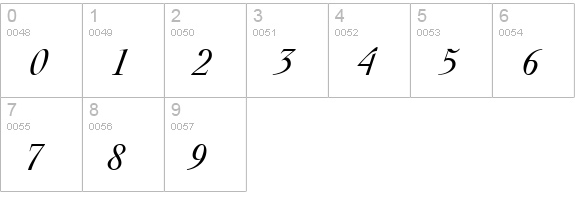
Thesis SSi Italic Font Details
Thesis SSi Italic is a distinctive, italic variant in the Thesis typeface family \xE2\x80\x94 well suited to design and typography projects.
Thesis SSi Italic font is an exquisite typeface that combines elegance, versatility, and sophistication. Designed with meticulous attention to detail, this font is perfect for adding a touch of class to any project or design. The italicized style of Thesis SSi enhances the overall aesthetic appeal, offering a sense of fluidity and grace. Its unique letterforms are crafted with precision, ensuring legibility while maintaining a distinct artistic flair. Whether used for headlines, body text, or creative displays, this font effortlessly commands attention. One of the standout features of Thesis SSi Italic font is that it is freely available to download at FontsMarket.com. This means that you can access this exceptional typeface without any cost, making it an ideal choice for budget-conscious designers, students, or anyone looking to add a touch of sophistication to their work. With its wide range of characters, including uppercase and lowercase letters, numbers, punctuation marks, and special symbols, Thesis SSi Italic font offers limitless possibilities for creative expression. This font is also compatible with various design software and can be easily integrated into your projects. Whether you are working on professional documents, branding materials, website designs, or personal projects, Thesis SSi Italic font is a versatile and stylish choice. Its timeless elegance and freely accessible nature make it a font worth adding to your collection. Elevate your designs with the effortless charm and sophistication of Thesis SSi Italic font, available for free download at FontsMarket.com.